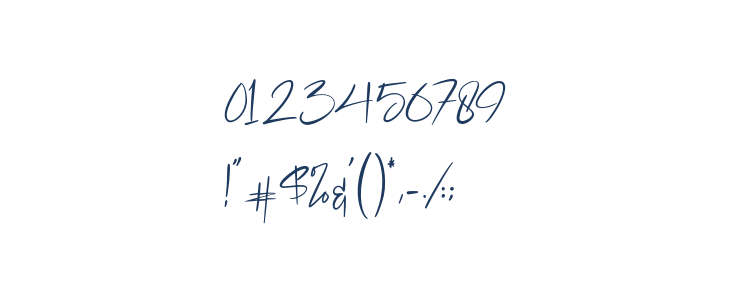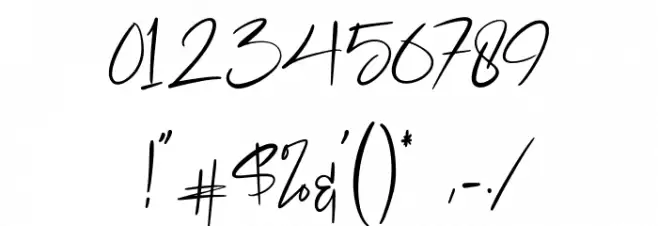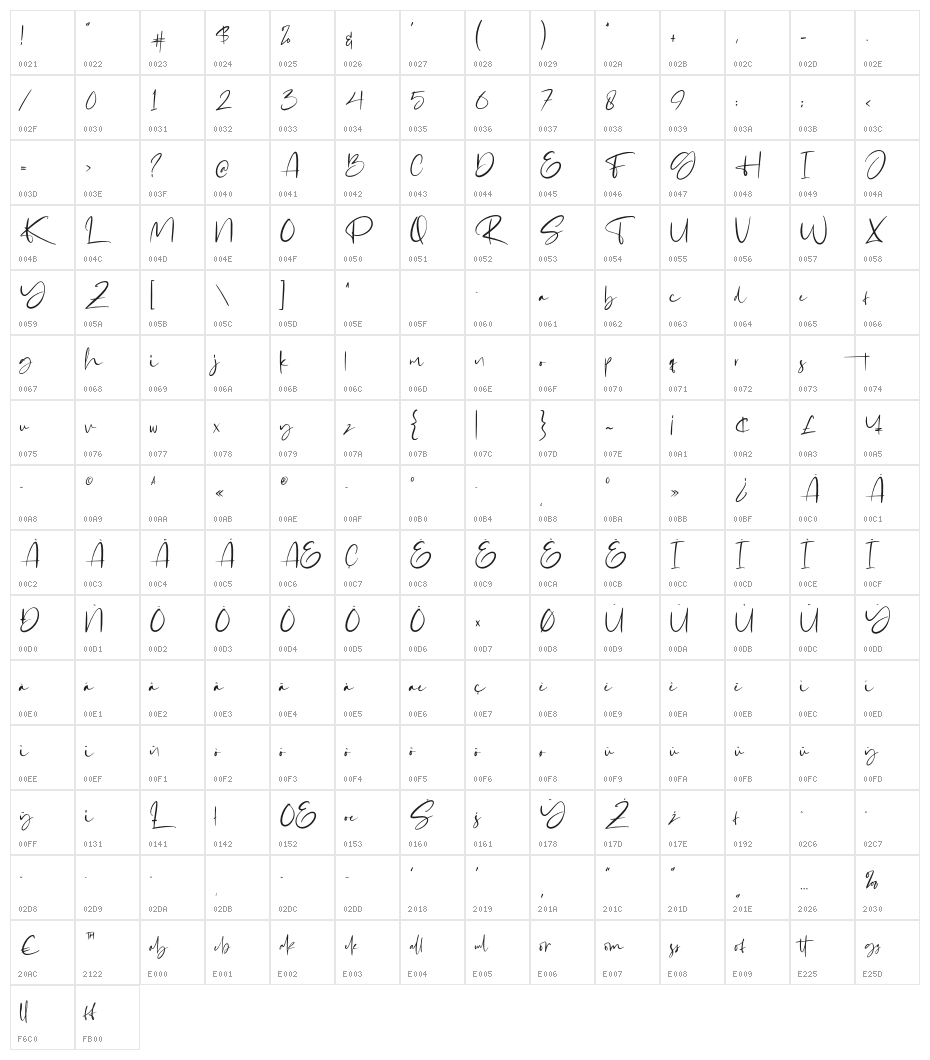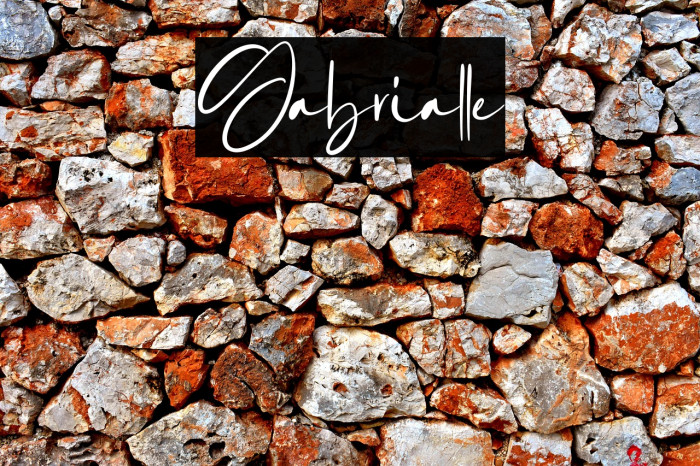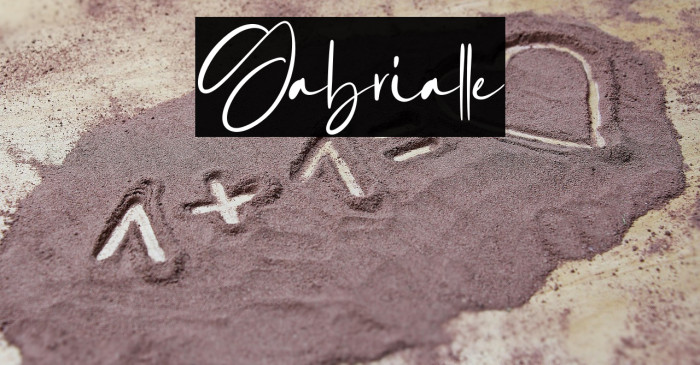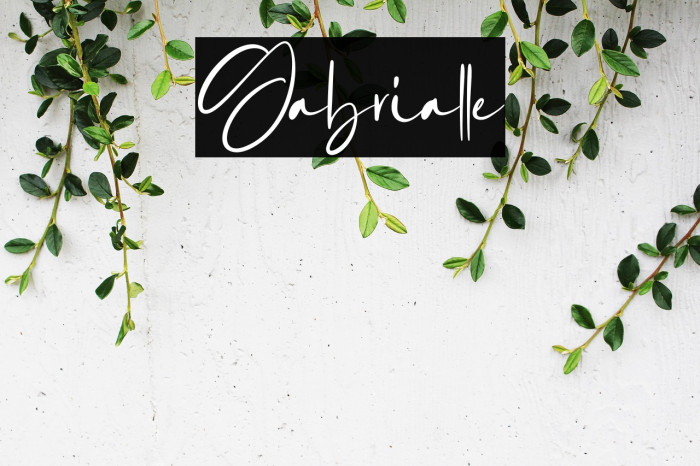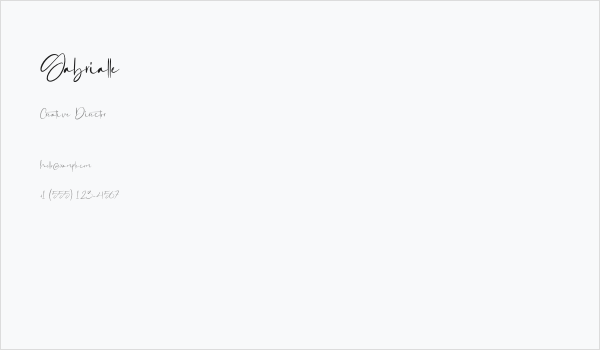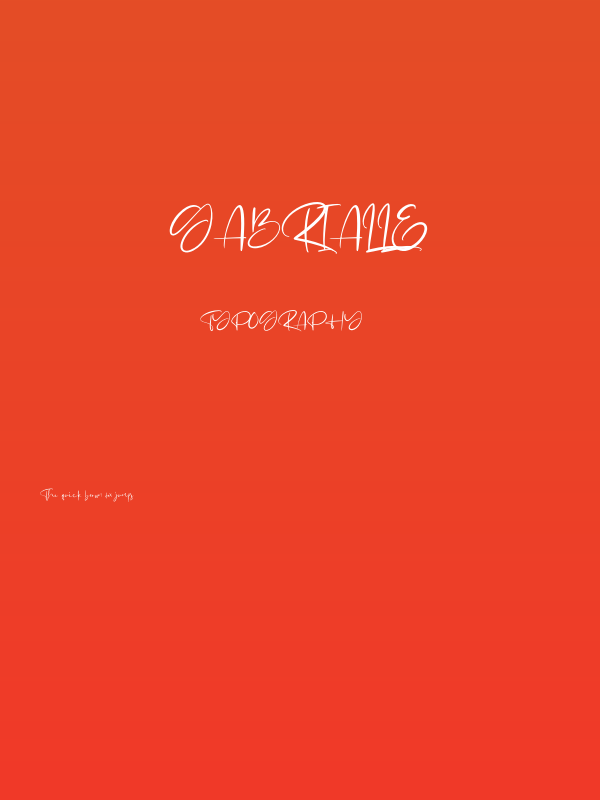
Gabrialle Font
Gabrialle Description
This font exudes a lively and expressive character with its handwritten style. The strokes are fluid and dynamic, giving a sense of movement and spontaneity. The uppercase letters are bold and slightly exaggerated, while the lowercase letters maintain a more delicate and flowing appearance. Numbers and special characters follow the same energetic style, ensuring consistency throughout. The overall look is modern and artistic, making it suitable for creative projects that require a personal touch.
| Proposed Projects | Ideal for invitations, greeting cards, branding, and artistic posters. |